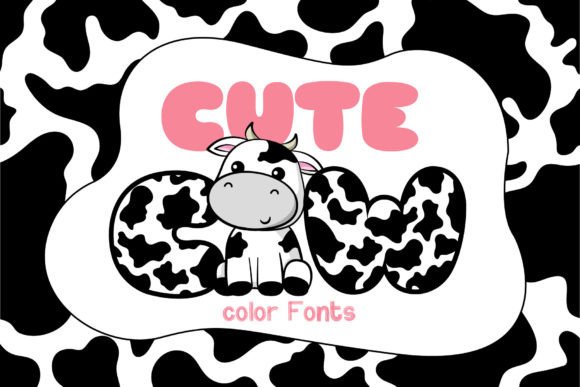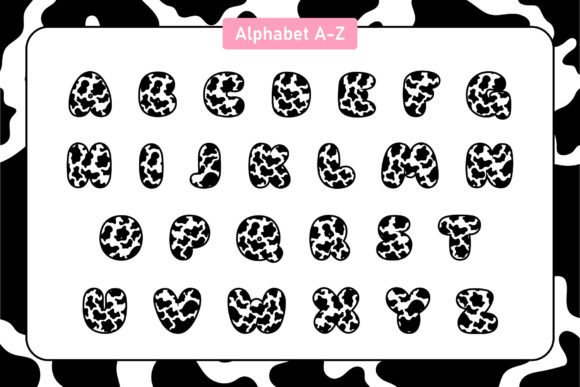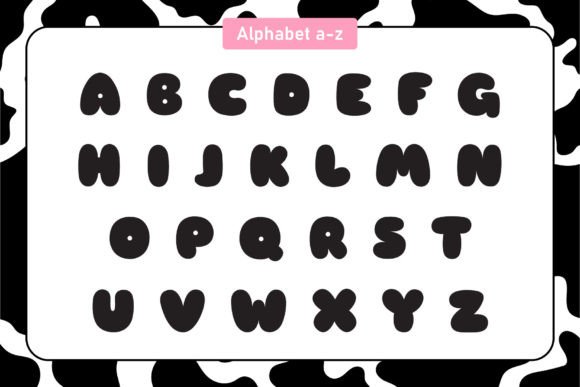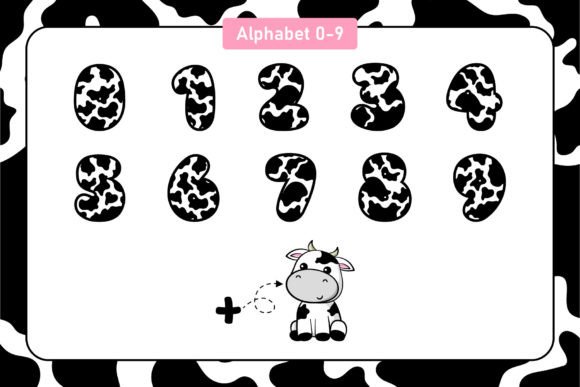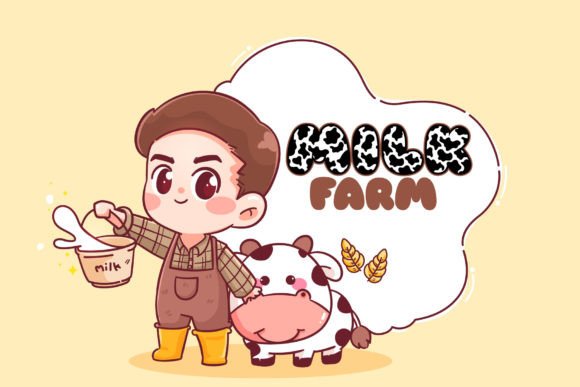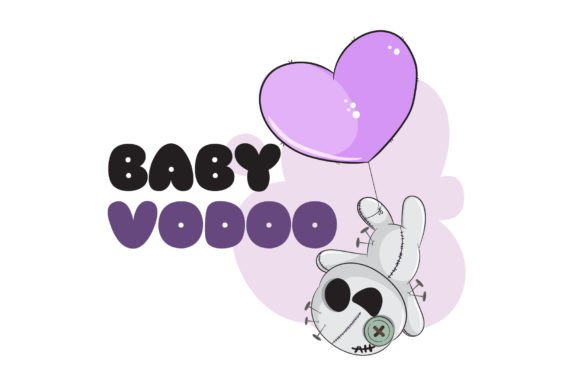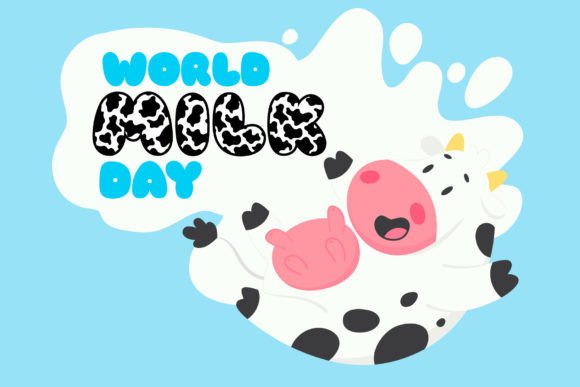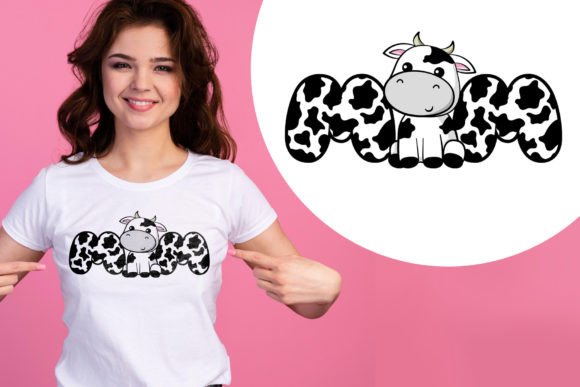
Cute Cow Font
About Cute Cow Font
Introducing Cute Cow, the adorable and playful color font that will add a touch of cuteness and fun to your designs! With two unique styles to choose from, this font offers versatility and creativity for all your projects.
The first style of Cute Cow features a color and pattern within the font itself, creating a charming and vibrant look. Each letter is filled with delightful colors and patterns, making it perfect for creating eye-catching invitations, stationary art, social media posts, and greeting cards. Let your imagination run wild as you explore the endless possibilities of this unique font.
The second style of Cute Cow allows you to change the font color as you please. This gives you the freedom to customize the font to match your desired color scheme or design theme. Whether you want a bold and vibrant look or a soft and pastel palette, Cute Cow can adapt to your creative vision.
Fall in love with the authentic feel of Cute Cow as it brings a sense of joy and playfulness to your designs. Its cute and fun aesthetic will capture the hearts of your audience and make your creations stand out from the crowd. Create stunning invitations that leave a lasting impression, design beautiful stationary art that brings a smile to people’s faces, craft eye-catching social media posts that grab attention, and send adorable greeting cards that spread happiness.
Add Cute Cow to your creative ideas, and you’ll notice how it elevates them to new levels. This font is perfect for a wide range of projects, from personal crafts to professional designs. Let Cute Cow be your companion in creating memorable and delightful pieces of art.
Get ready to infuse your designs with cuteness and fun with Cute Cow. Let this beautiful font be your creative companion and watch your ideas come to life in the most adorable way possible!